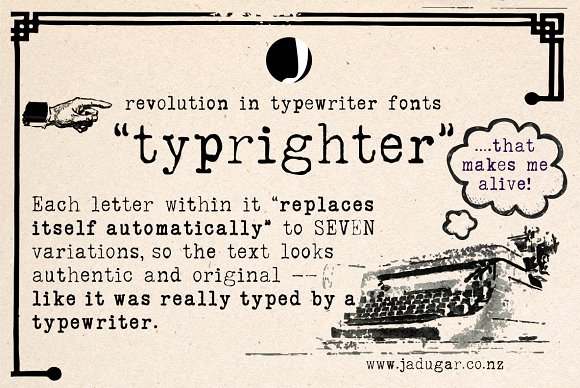
Download Typrighter Font for free! Created by Jadugar Design Studio and published by Maximilian Burch, this serif font family is perfect for adding a unique touch to your designs.